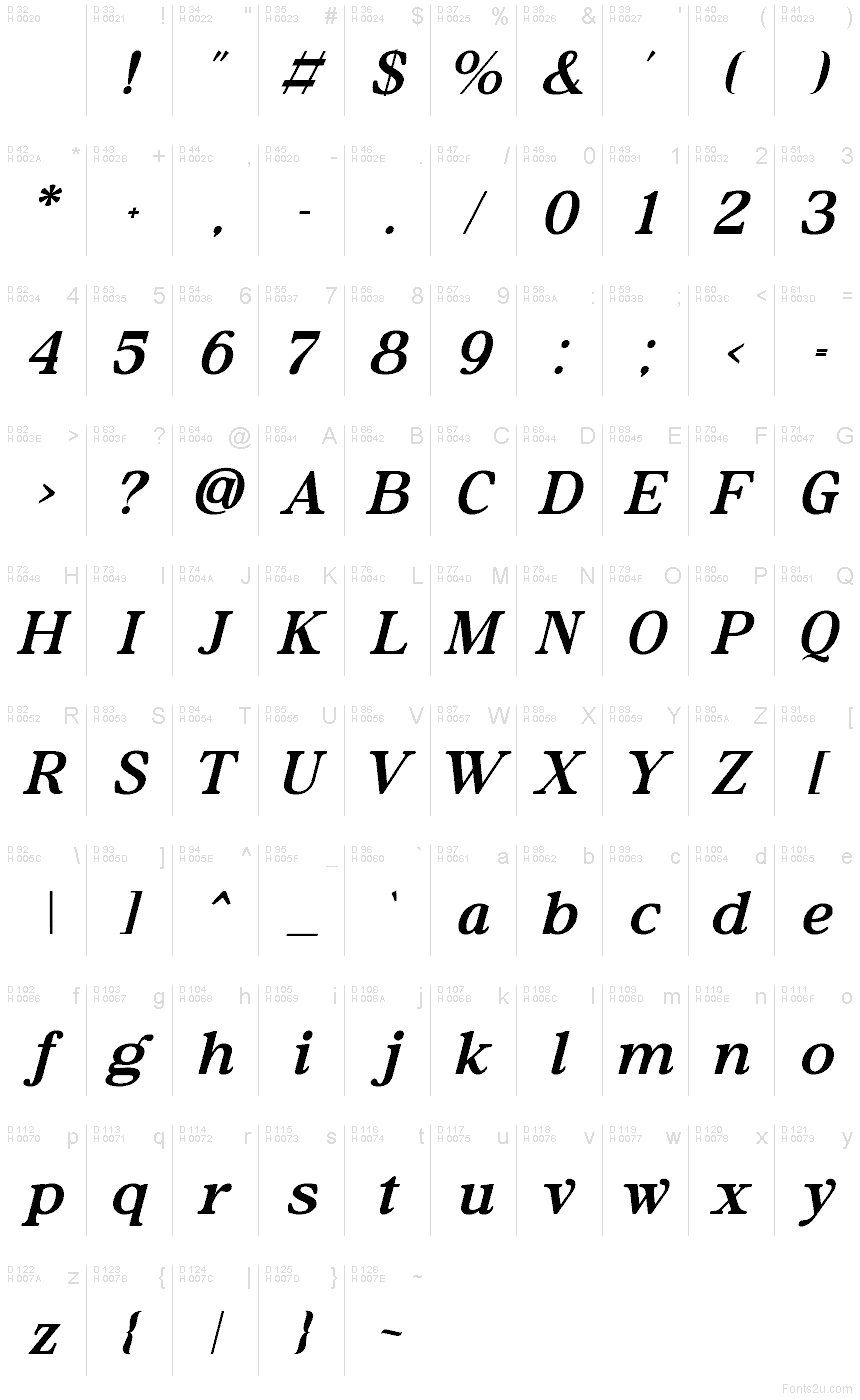
Bigest Hopefully Italic font by Fahmi Imanulah of Spectype is a free italic serif typeface. Part of the Bigest Hopefully family, it leans forward with conviction-sleek curves, firm inky strokes, and crisp, wedge-like serifs that inject motion into every word. The compact rhythm and taut spacing give headlines a taut, confident snap without feeling stiff.
Using Bigest Hopefully Italic, your titles and short lines get a sophisticated push that shines on editorial headlines, pull quotes, fashion branding, book covers, posters, and social graphics. This free font carries a rich, dark texture that reads beautifully at larger sizes while staying elegant in subheads. Pair it with a clean grotesque sans for body copy, and let the italic handle the drama.